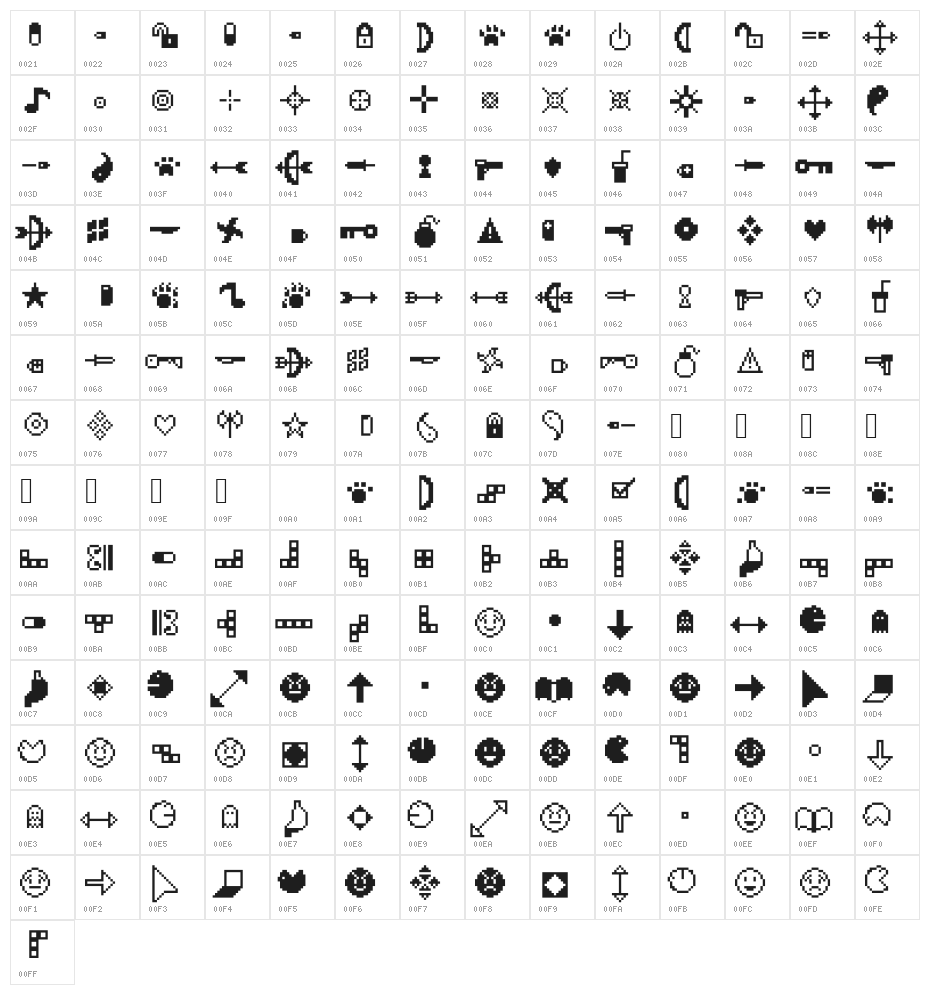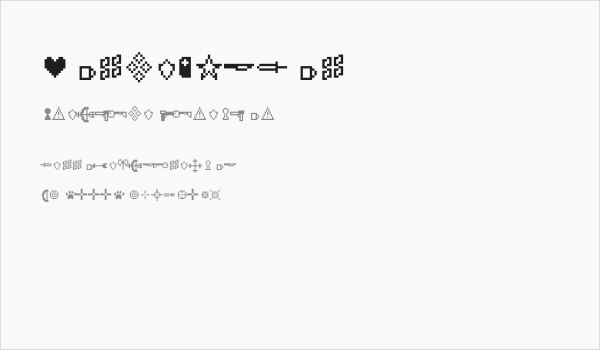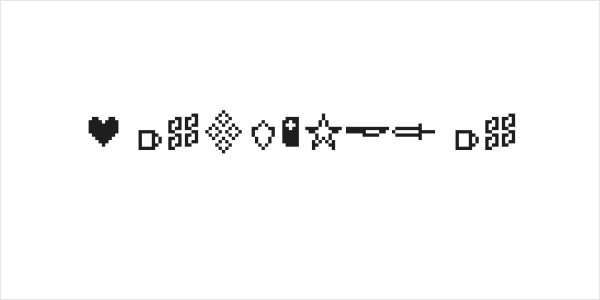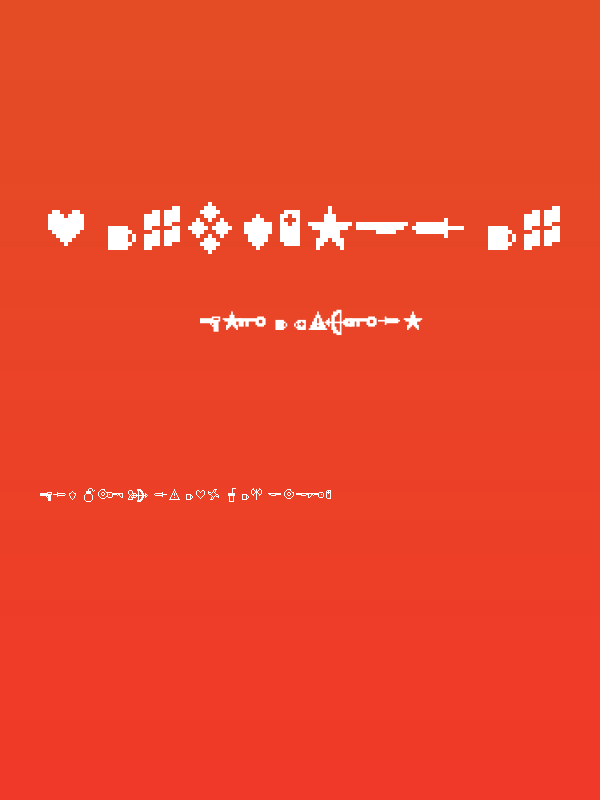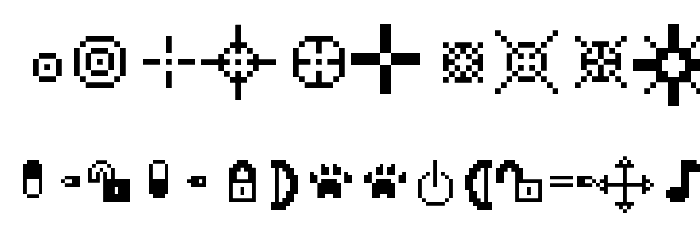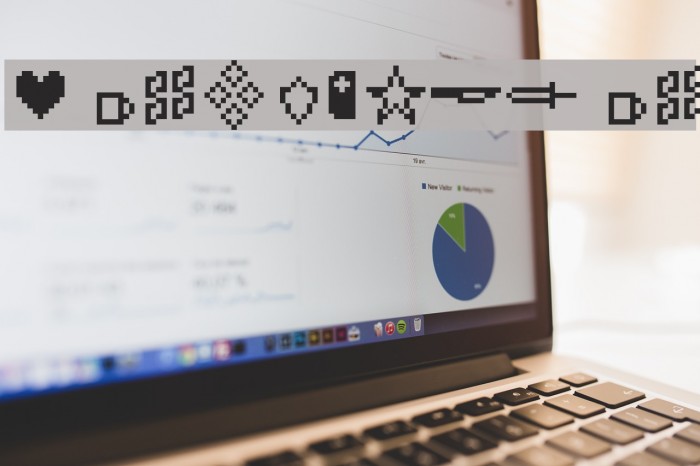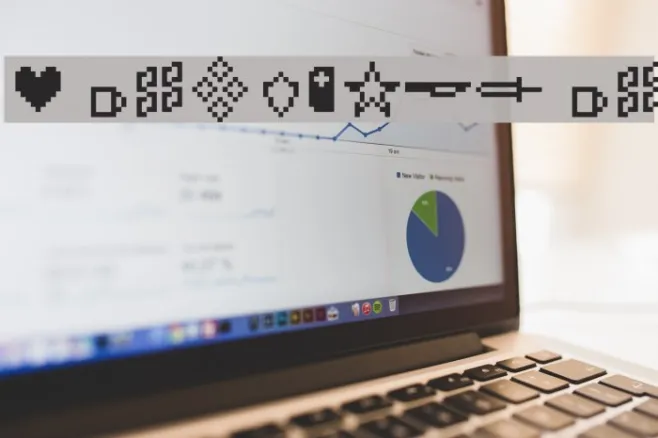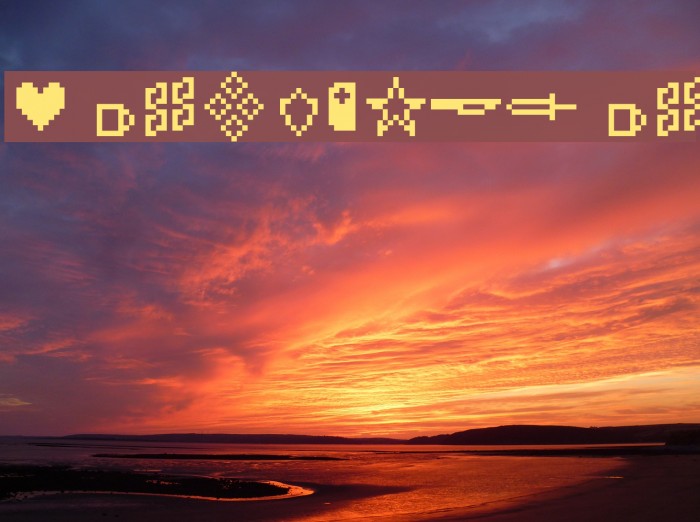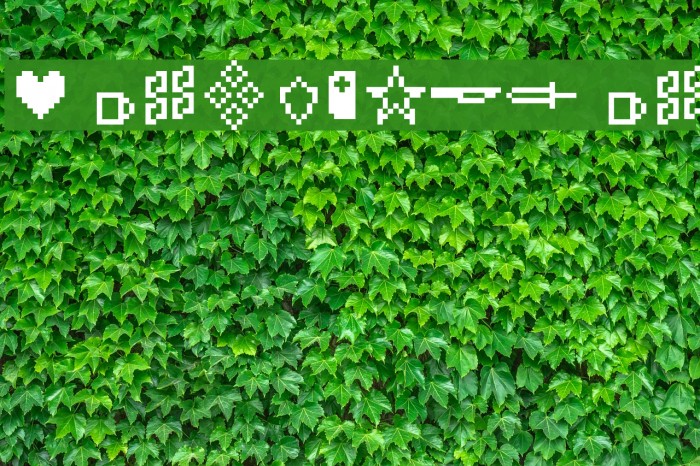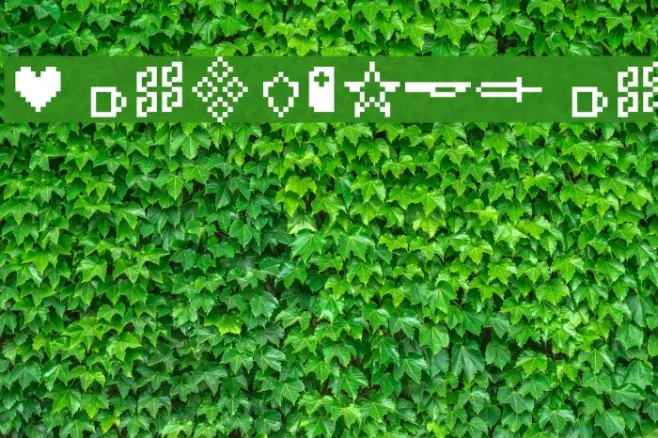
WolveSymbol Font
WolveSymbol Description
A pixelated dingbat font featuring a variety of symbols such as arrows, weapons, geometric shapes, hearts, stars, locks, and animal tracks, all rendered in a retro, low-resolution style reminiscent of early video games.
| Overall Style | Decorative, Retro, Pixel Art |
| Use Case | Icons, Game assets, Decorative elements |
| Proposed Projects | Video game UI, retro-themed posters, pixel art projects, icon sets, digital stickers. |